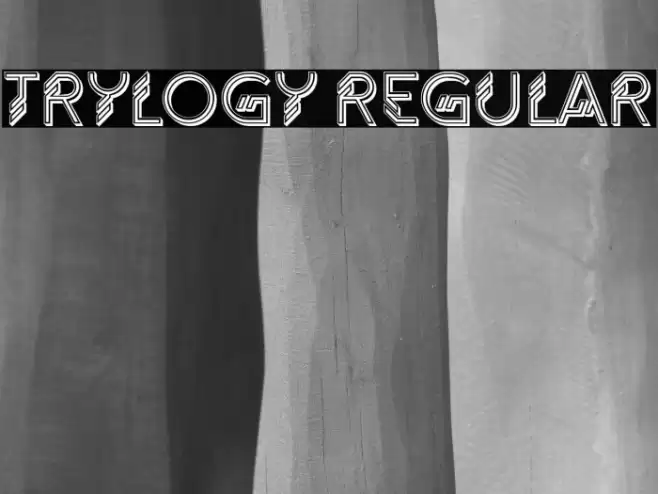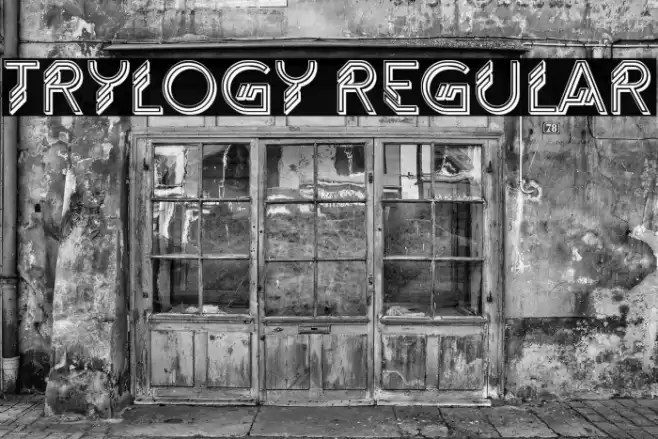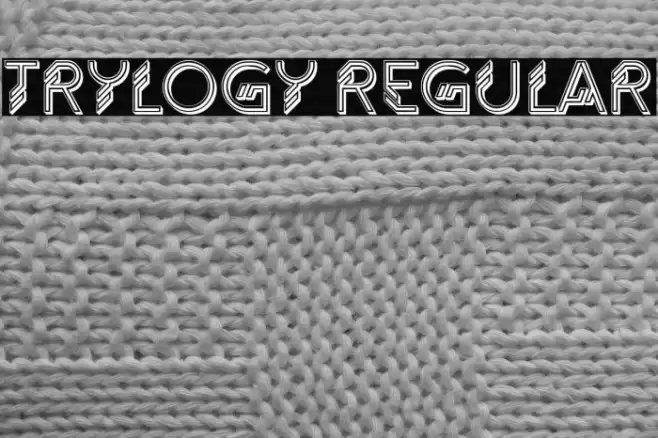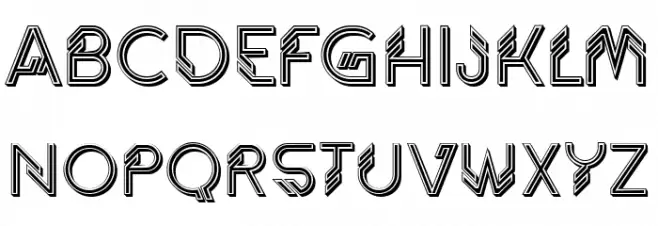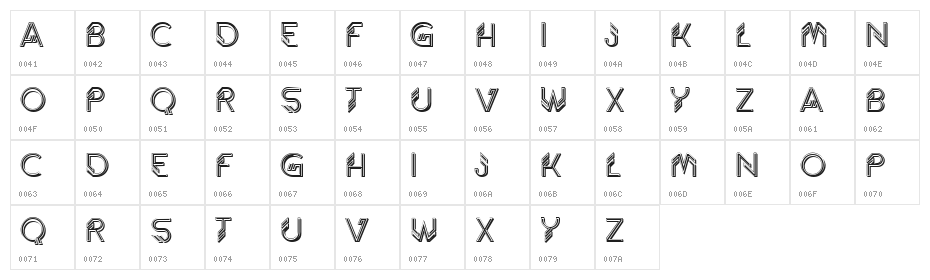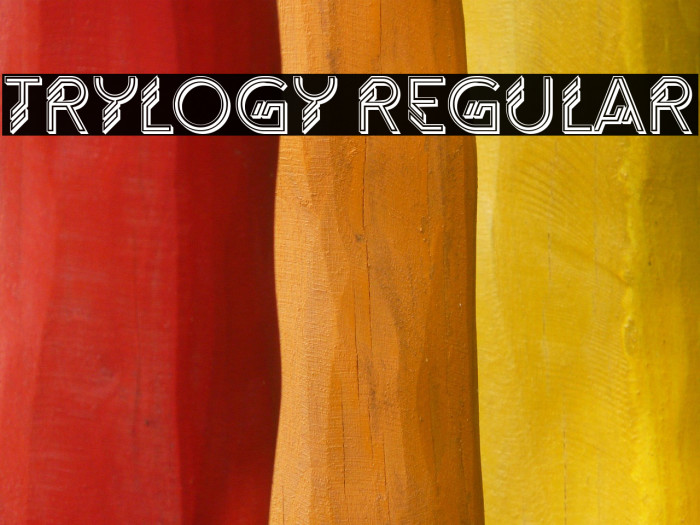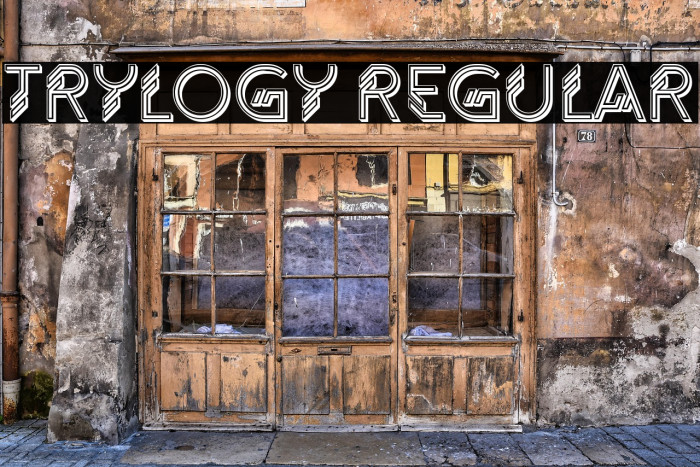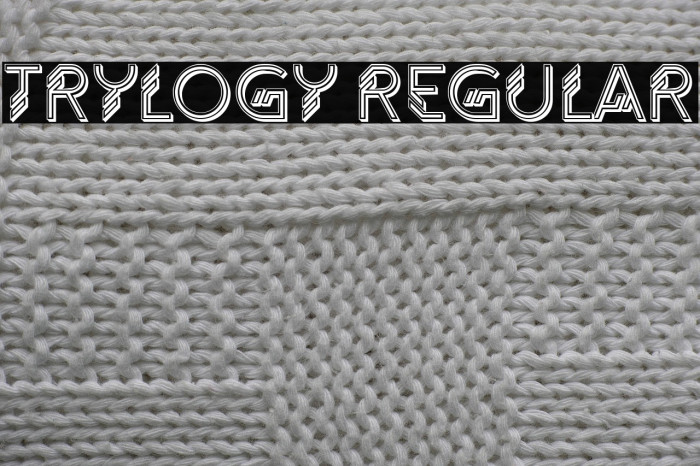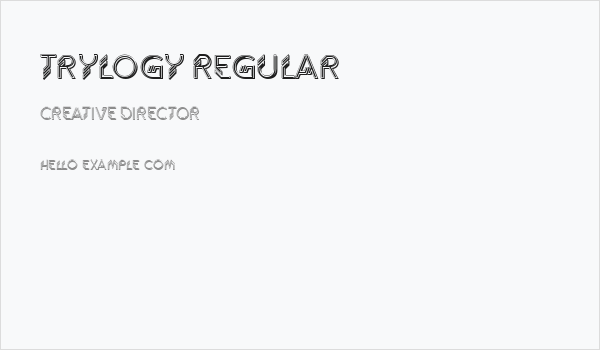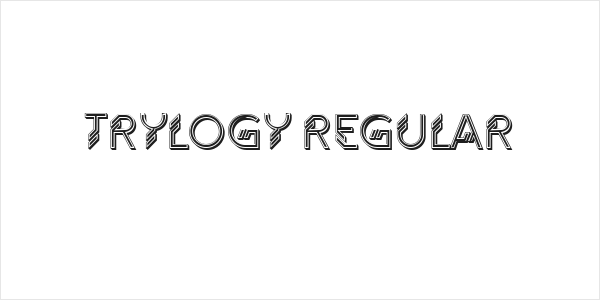
This font features a unique and intricate design with a futuristic and geometric style. Each character is composed of multiple parallel lines, creating a layered and dimensional effect. The uppercase letters are bold and striking, with sharp angles and clean lines that give a sense of movement and energy. The lowercase letters maintain the same structural complexity, ensuring consistency throughout the typeface. The numbers and special characters are designed with the same attention to detail, making them visually cohesive with the rest of the font. This font's distinct appearance makes it ideal for projects that require a modern and eye-catching aesthetic.
A futuristic, geometric font with layered, dimensional characters from Uncategorized fonts.
- Proposed Projects: Ideal for sci-fi themed designs, tech branding, video game titles, and modern posters.